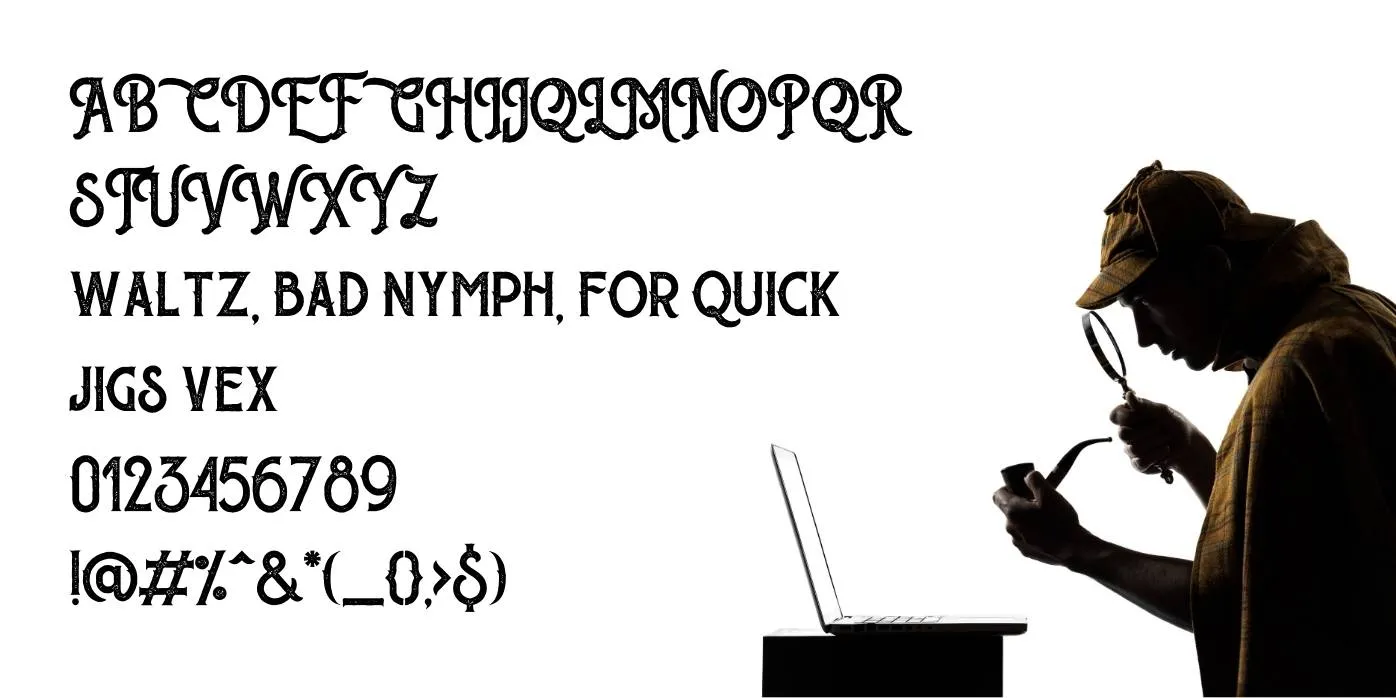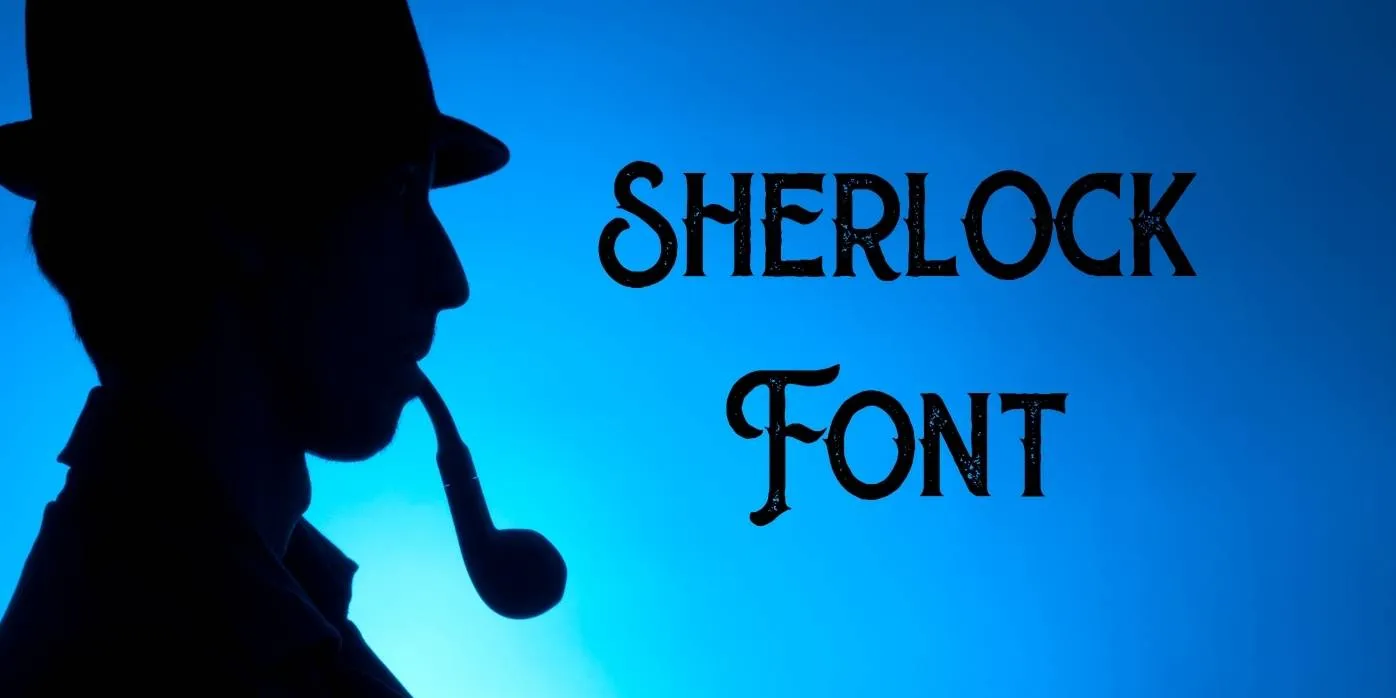
Sherlock Font
Presenting you a lush great and dried shape typeface that is known as Sherlock Font. It is designed by Dikas Studio and the font family belongs to a Retro font family. Its characters have rustically visible with a nice texture style. Sherlock font can support various international languages and accents for international users.
The font’s readability is at its peak is due to its high standard look and rusty style. The characters in this font are designed to give an old-fashioned rusty look. This fancy typeface has stylish glyphs that consist of Uppercase and Lowercase, Letters, Numbers and Numerals, general punctuation, unique glyphs, and special symbols, etc. The font has a beautiful pairing personality with¬†The Rustic Font.